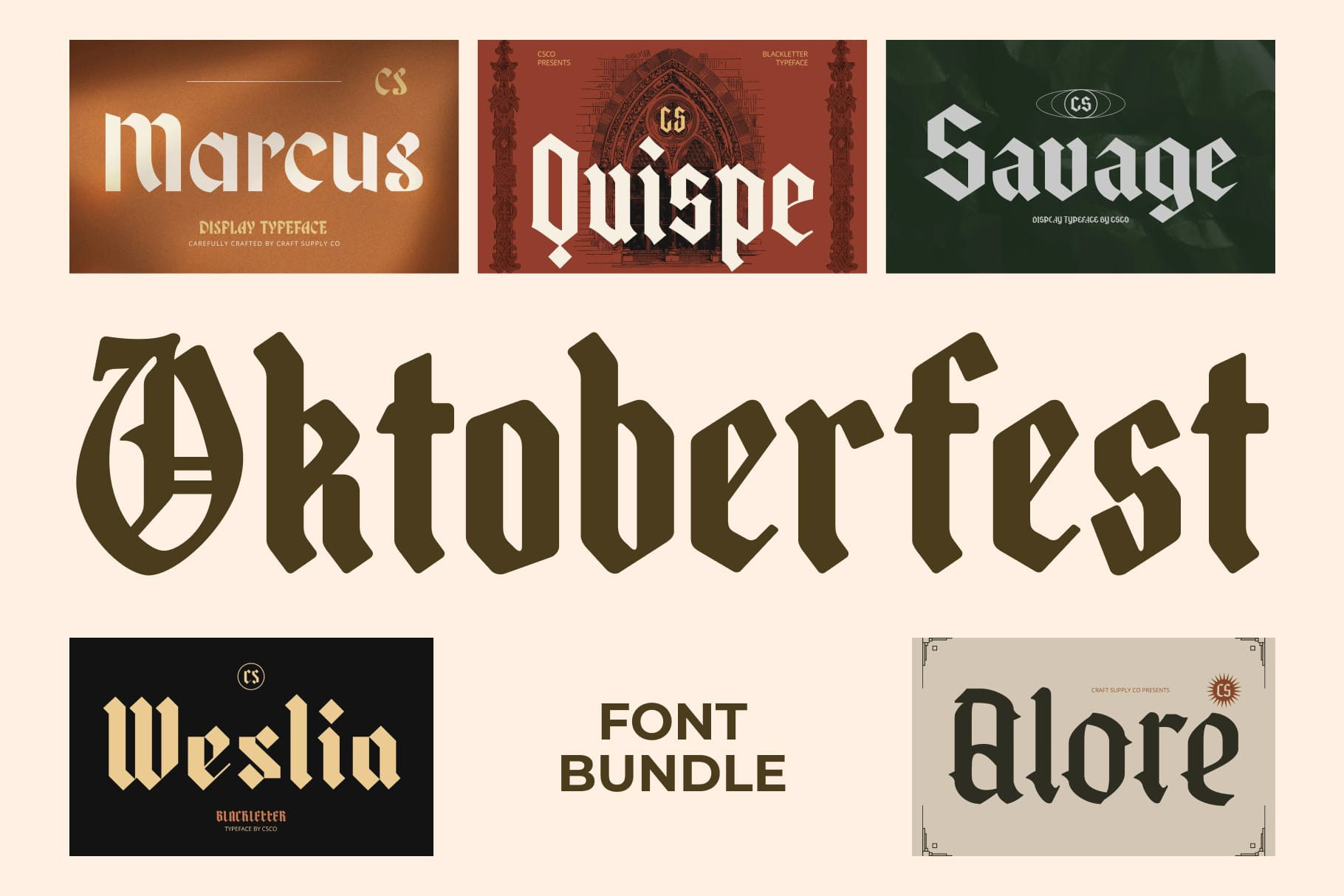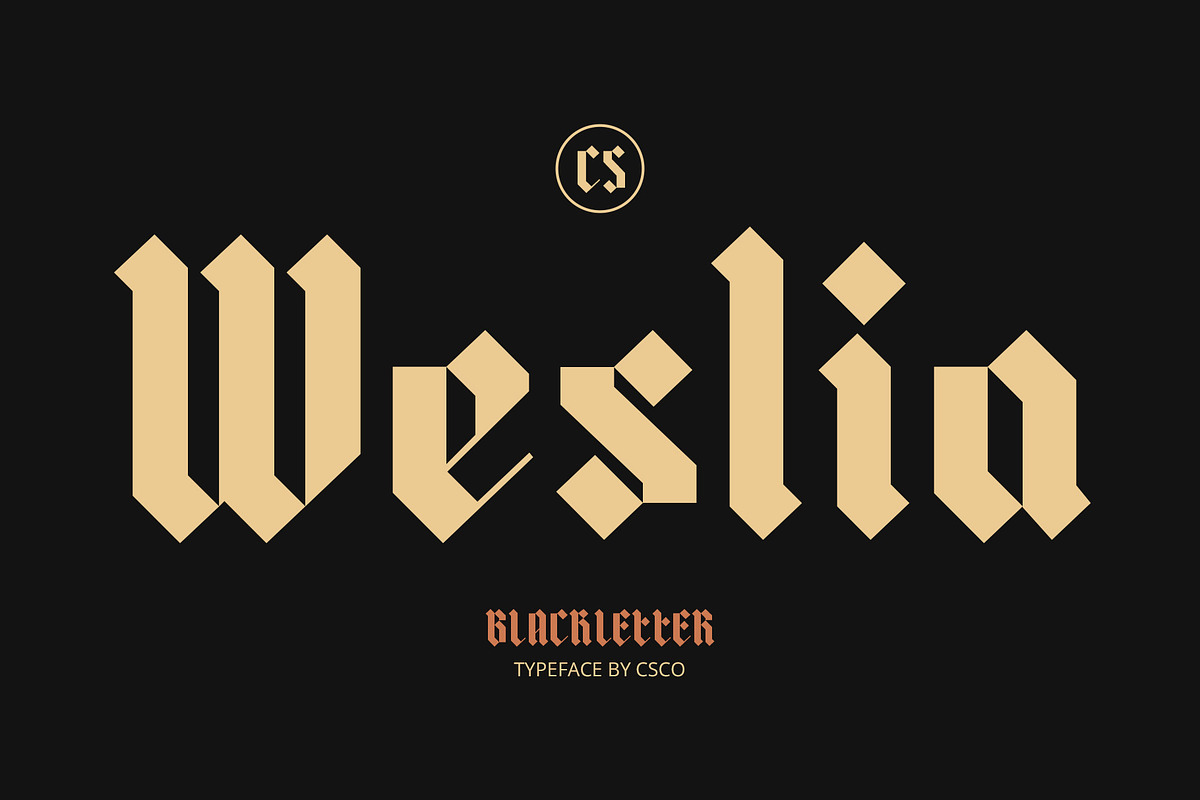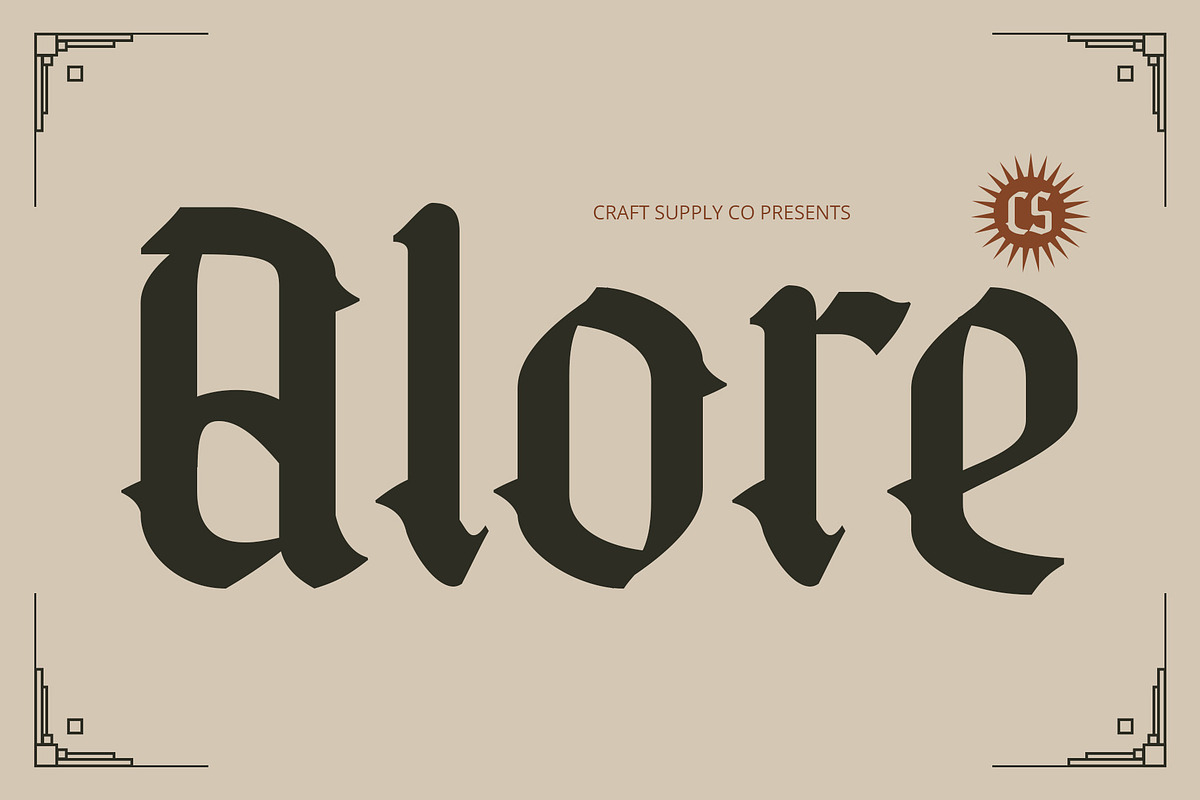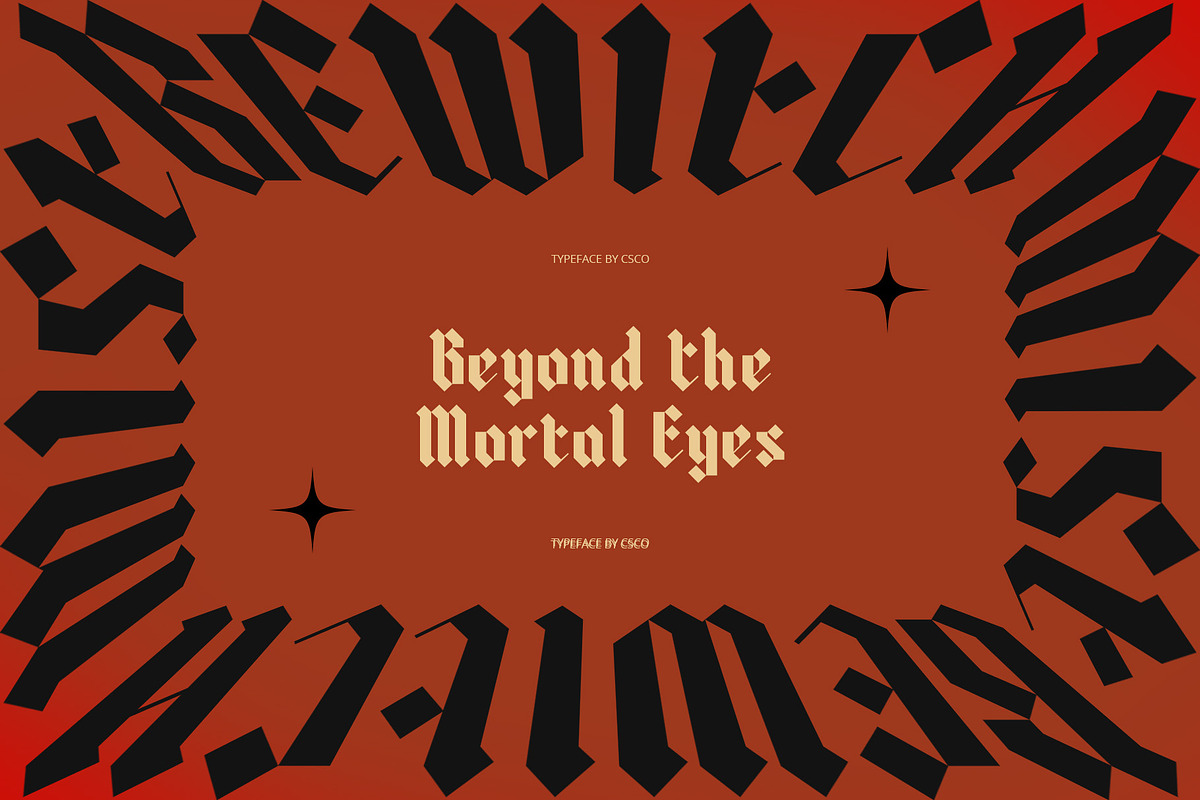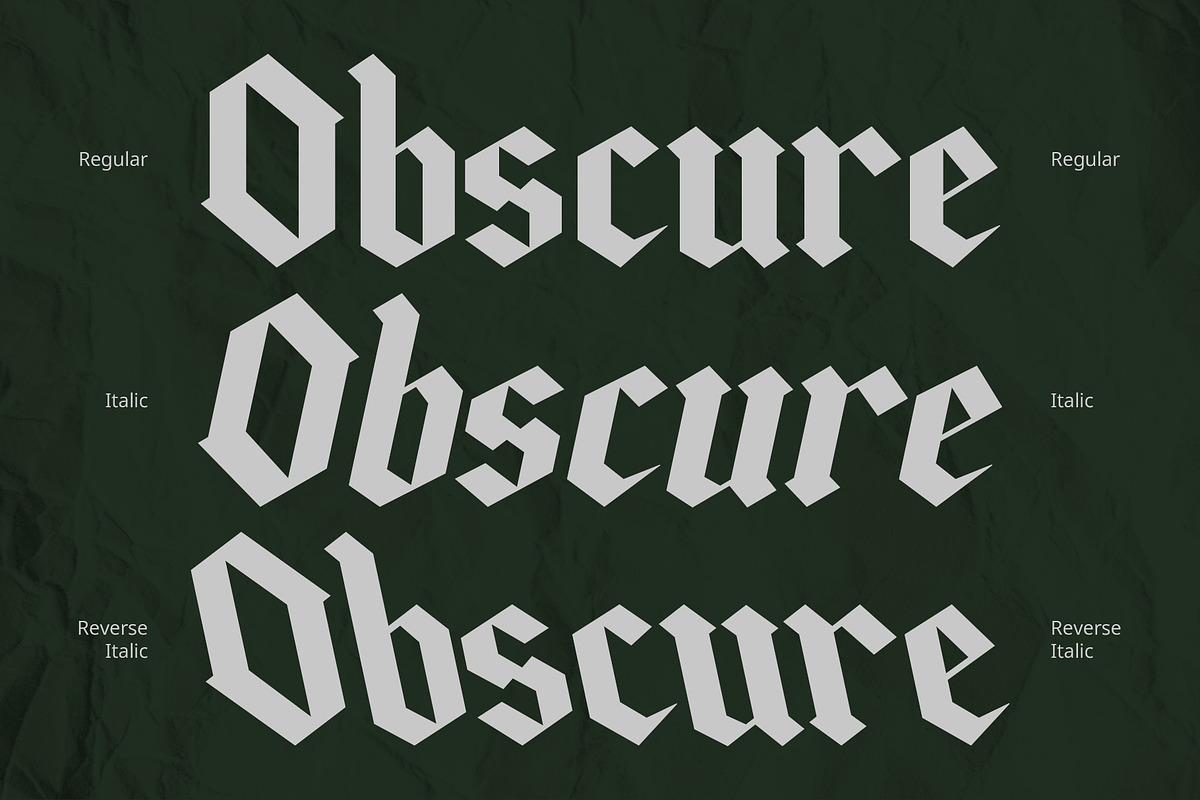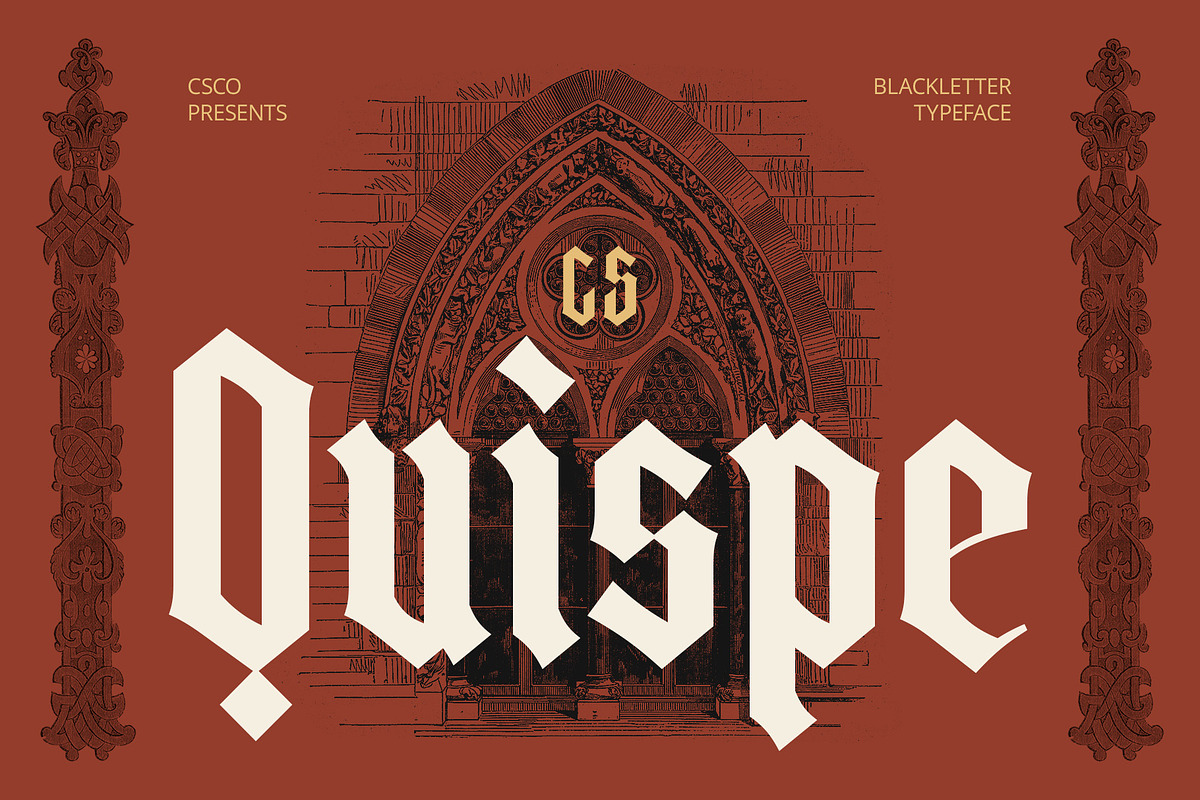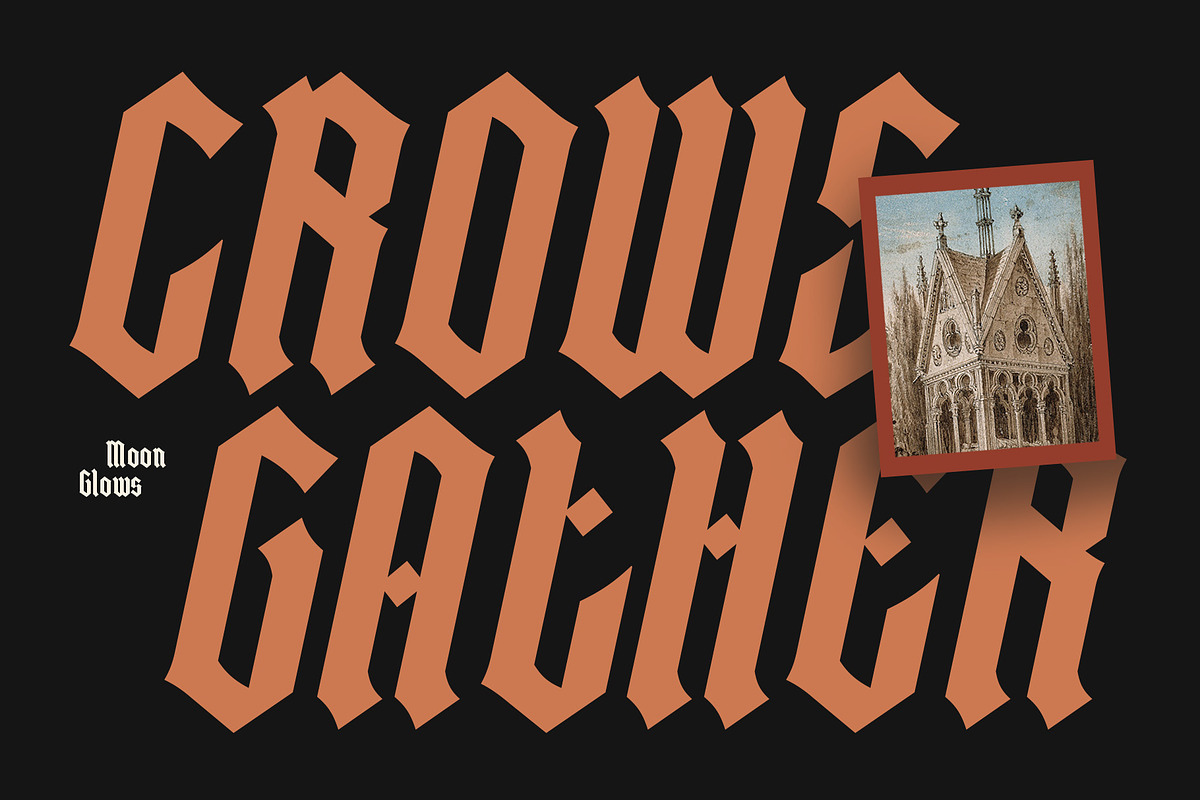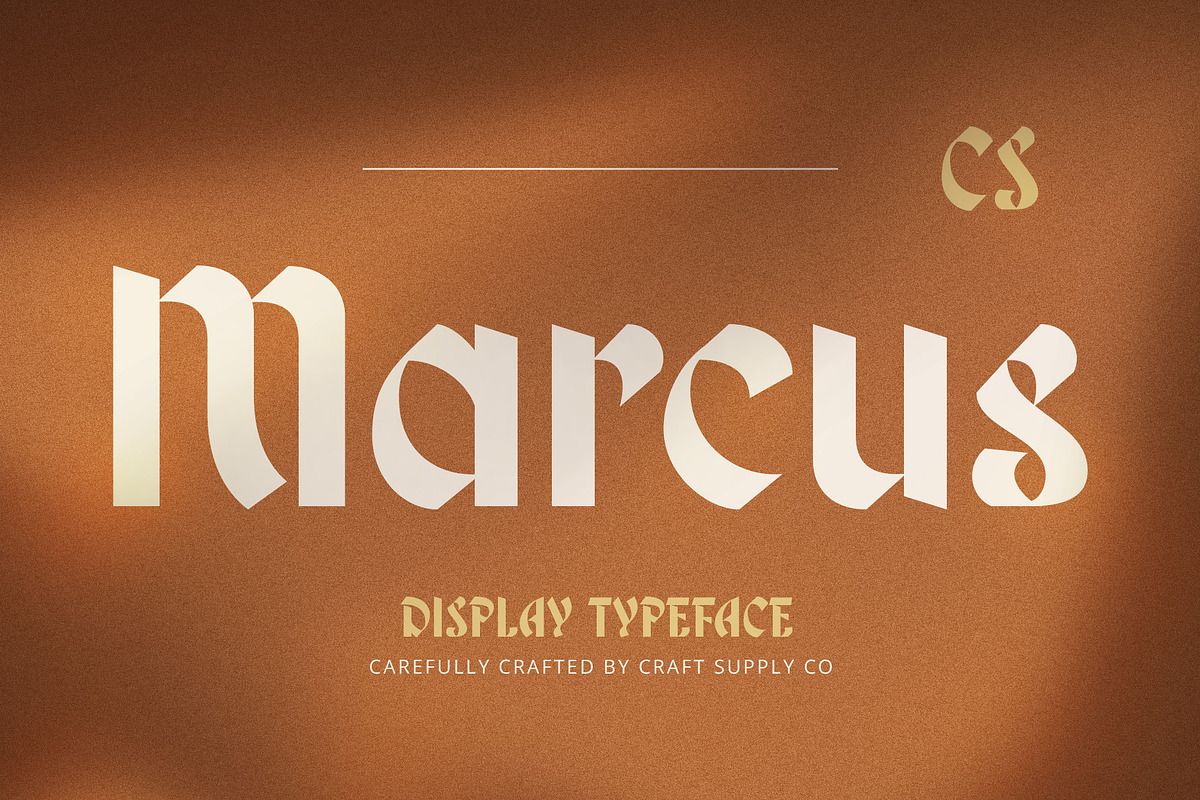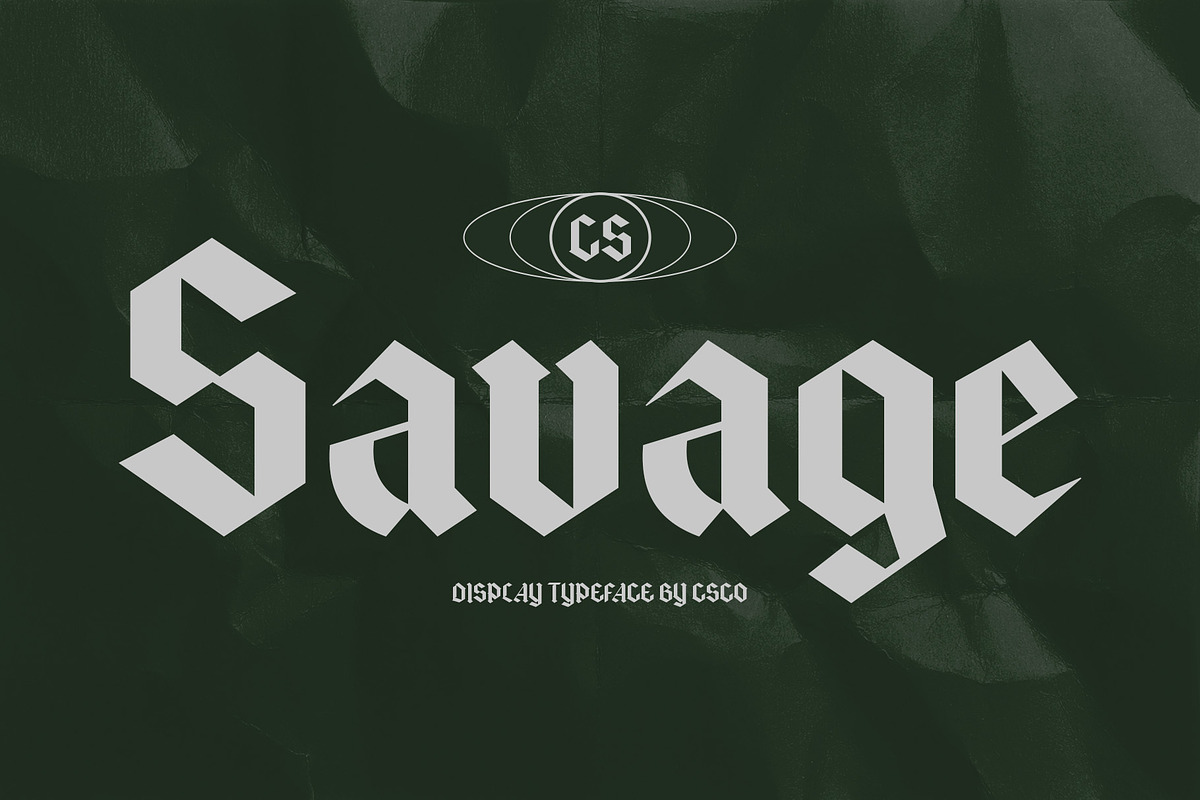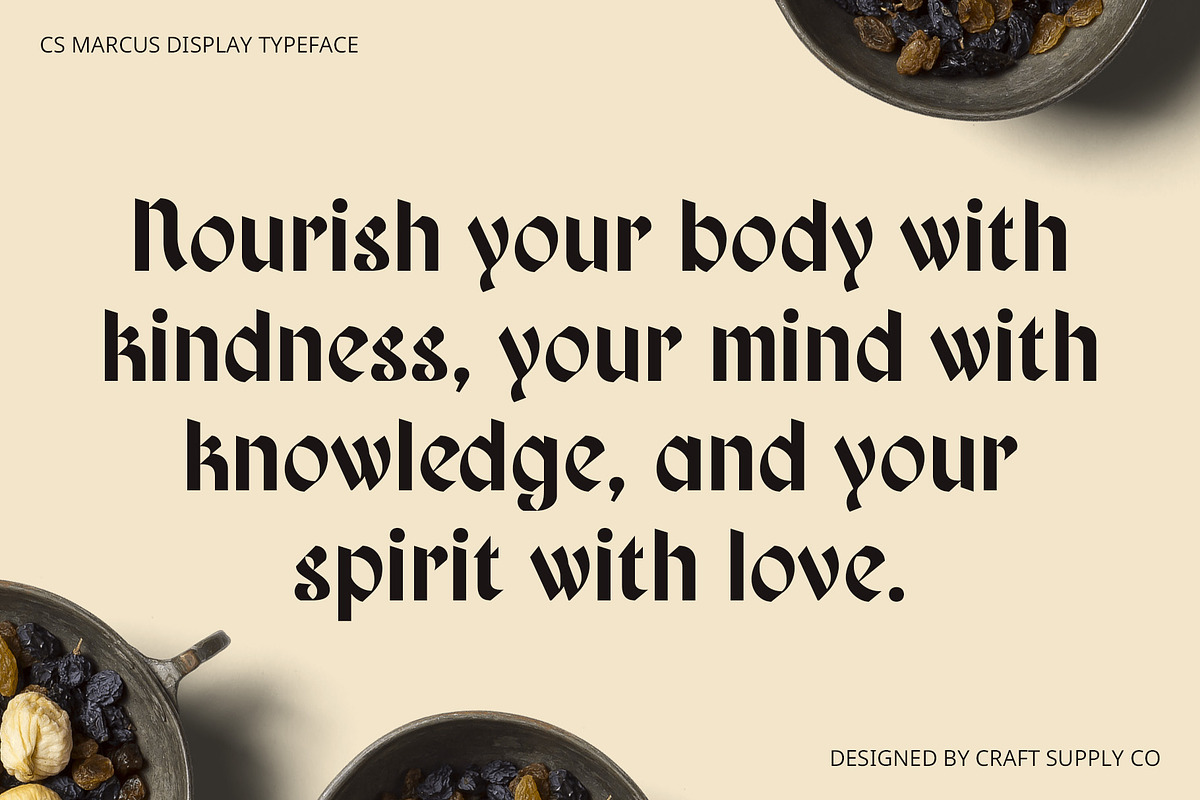
Oktoberfest Font Bundle
Every typeface within the Oktoberfest Font Bundle has been meticulously crafted to capture the festive spirit of Bavarian heritage, featuring robust character sets that include uppercase letters, lowercase letters, numerals, punctuation marks, and essential symbols. This comprehensive inclusion ensures you have all the necessary typographic elements to build complete visual identities from the ground up without missing a single detail.
Whether you are designing authentic menus for local restaurants, creating eye-catching signage for autumn festivals, or developing packaging for craft beverages, these fifteen distinct styles deliver unmatched aesthetic impact. The robust proportions and decorative flourishes provide an immediate sense of warmth, craftsmanship, and historic celebration that stands out in any commercial environment.
Upgrade your creative toolkit today with this expertly curated selection and infuse your upcoming projects with undeniable character and professional polish. The Oktoberfest Font Bundle equips designers with the exact resources needed to execute themed concepts flawlessly, ensuring every headline and label resonates with festive authenticity.
✨ FEATURES
- 15 unique fonts
- Includes uppercase, lowercase, numerals, punctuation, and symbols
✨ FONTS
- CS Alore
- CS Marcus
- CS Quispe
- CS Savage
- CS Weslia